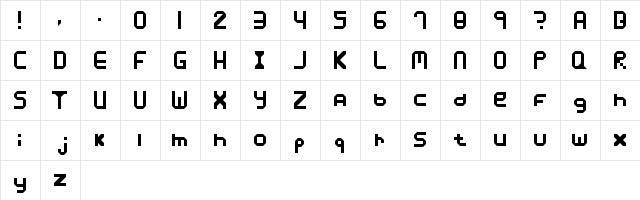
Xposure Regular
| Designer | toughluck |
Xposure takes a measured approach to typography — its balanced proportions and neutral character make it a reliable workhorse for both digital and print work.